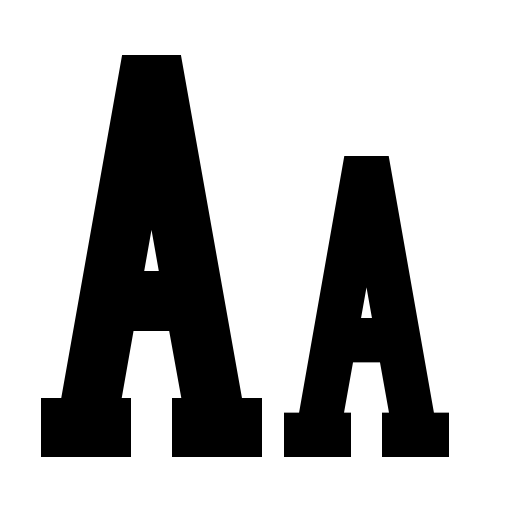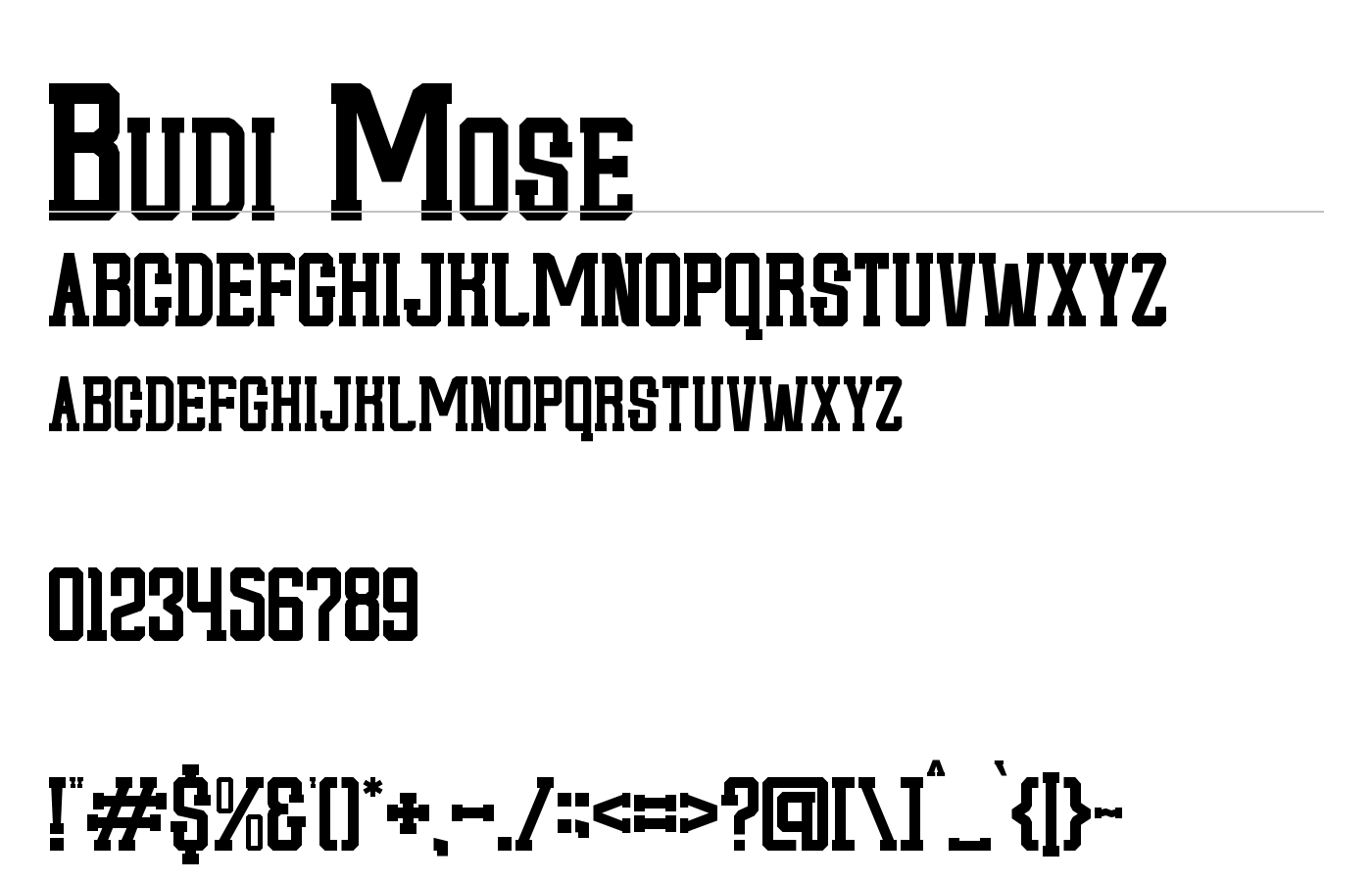
Budi Mose is a bold, condensed slab serif font with a strong, industrial feel, featuring thick, blocky serifs and high stroke contrast. Its uppercase-only style and geometric letterforms make it ideal for headlines, logos, and posters where a powerful, vintage-inspired impact is desired. This font works best for brands seeking a tough, confident look with a nod to classic Western or industrial design.
Budi Mose Font
About Budi Mose Font
| Designer | Virgiawan Listanto. 2023 |